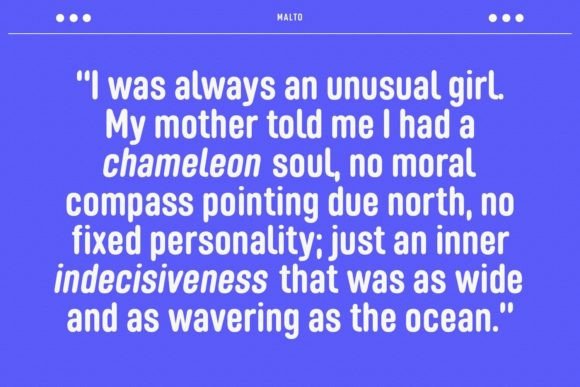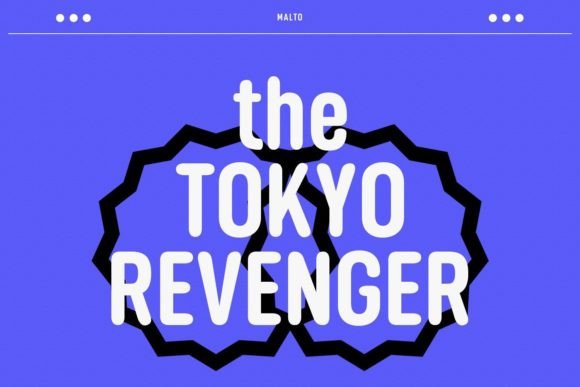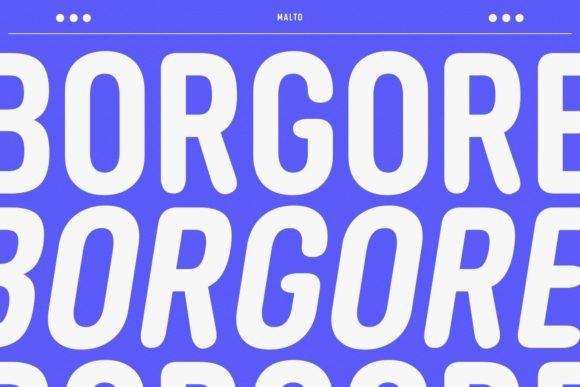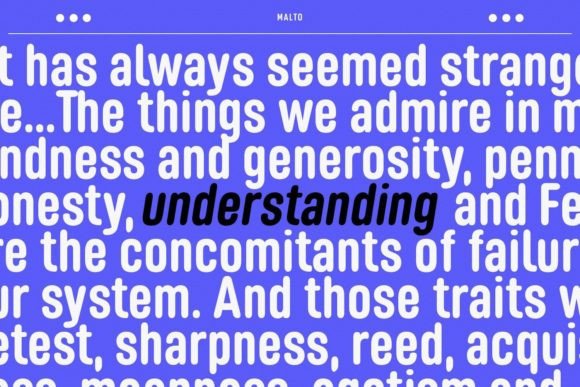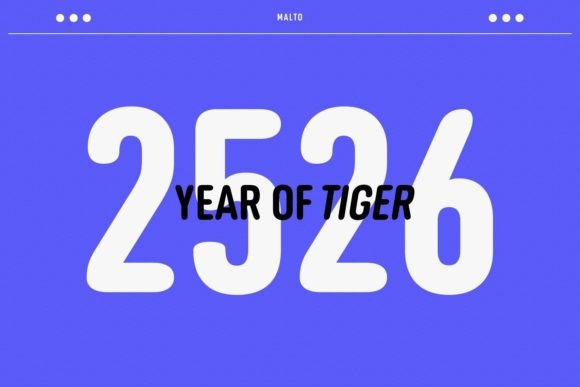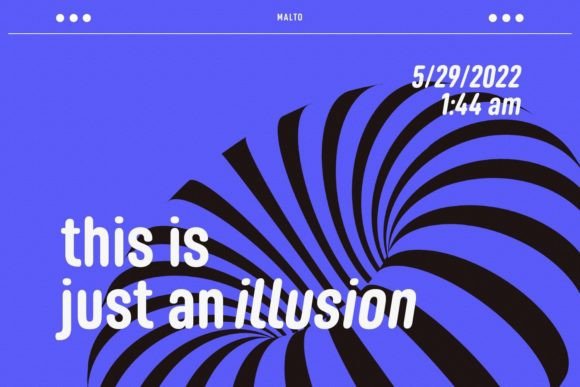
Introduction to Malto Font
Have you ever stared at a blank canvas, waiting for that perfect font to bring your creative project to life? We’ve all been there – the excitement of a new idea, the fear of making it look mediocre, and the search for that one elusive design resource that will elevate our work. For designers, finding the right font can make all the difference in making a project shine. That’s why we’re thrilled to introduce you to the Malto Font – a natural and elegant sans serif font that’s about to become your go-to design companion.
Key Features of Malto Font
- High-quality font with a unique, creative design perfect for various projects
- Designed to be versatile and adaptable, making it suitable for a wide range of creative projects, from digital art to print materials
Honest Review: Malto Font
As a designer, I’m always on the lookout for high-quality design resources to enhance my creative projects. The Malto Font has been a great addition to my collection, offering a unique and stylish font that’s perfect for modern designs.
What works well: ✨ The Malto Font is incredibly versatile, suitable for both digital and print projects. Its sleek and modern design makes it a great choice for logos, branding, and advertising materials. The font also includes a range of weights and styles, allowing for easy customization and flexibility.
Overall impression: I’ve been really impressed with the Malto Font, and it’s quickly become a go-to resource for my design projects. The transparent background and high-quality design make it a great choice for designers looking for a stylish and modern font.
Malto Font
Getting the Most Out of Malto Font
Comparison: Open Sans has a more minimalist and straightforward design compared to Malto Font, which has a more decorative and stylized appearance.
Comparison: Montserrat has a more geometric and architectural design compared to Malto Font, which has a more organic and hand-drawn appearance.